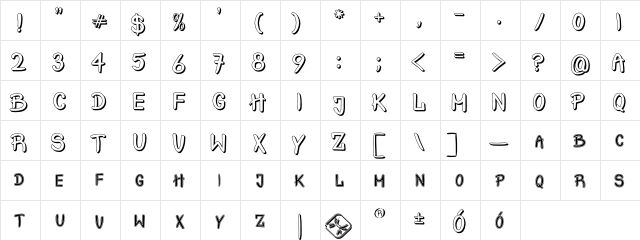
Crash Test Shadow Regular Font Preview
Crash Test Shadow Regular
Crash Test Shadow Regular Font Details
Design Context for Crash Test Shadow Typeface
Crash Test Shadow brings ornamental detail and strong personality to headlines and identities, where visual impact matters more than quiet functionality.
Font Pairing: Pair with a clean neutral sans-serif for body copy to let Crash Test Shadow's character lead without overwhelming the composition.
Pro Tip: Treat Crash Test Shadow as the centrepiece of your typographic hierarchy. One strong heading set in a decorative face can carry an entire layout.